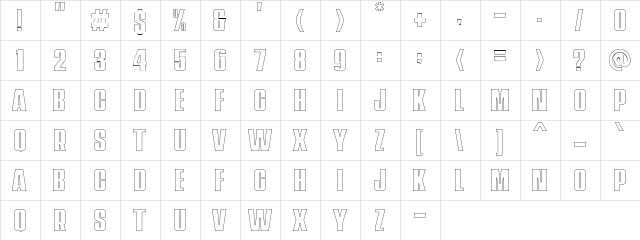
Navada Outline Demo Outline
| Style | Outline |
| Designer | Sabrcreative Studio |
Design Context for Navada Outline Demo Typeface
Navada Outline Demo brings ornamental detail and strong personality to headlines and identities, where visual impact matters more than quiet functionality.
Font Pairing: Pair with a clean neutral sans-serif for body copy to let Navada Outline Demo's character lead without overwhelming the composition.
Pro Tip: Use Navada Outline Demo exclusively at display sizes — it was designed to be seen, not read at length. Let a neutral companion handle body copy.